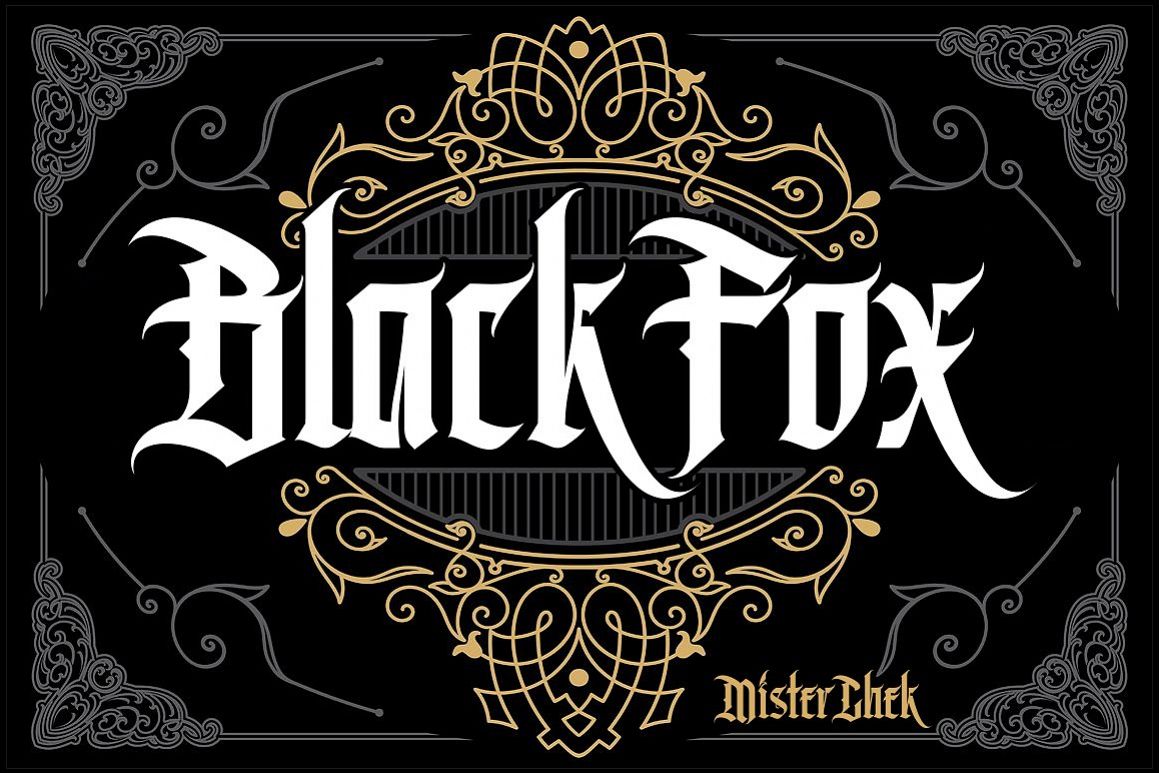
Black Fox
Black Fox is a decorative, gothic inspired typeface in
modern performance.
It is perfect for:
Logos
Posters
Labels
Headlines
Apparel
& more